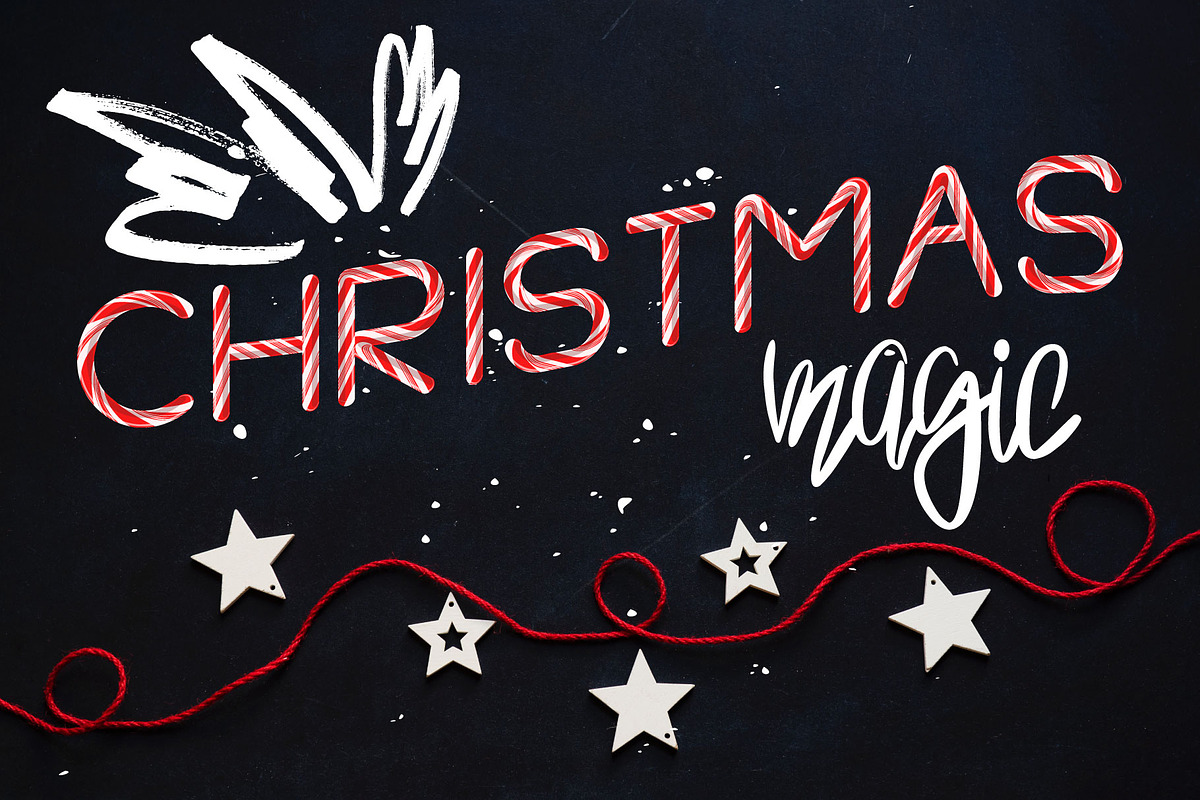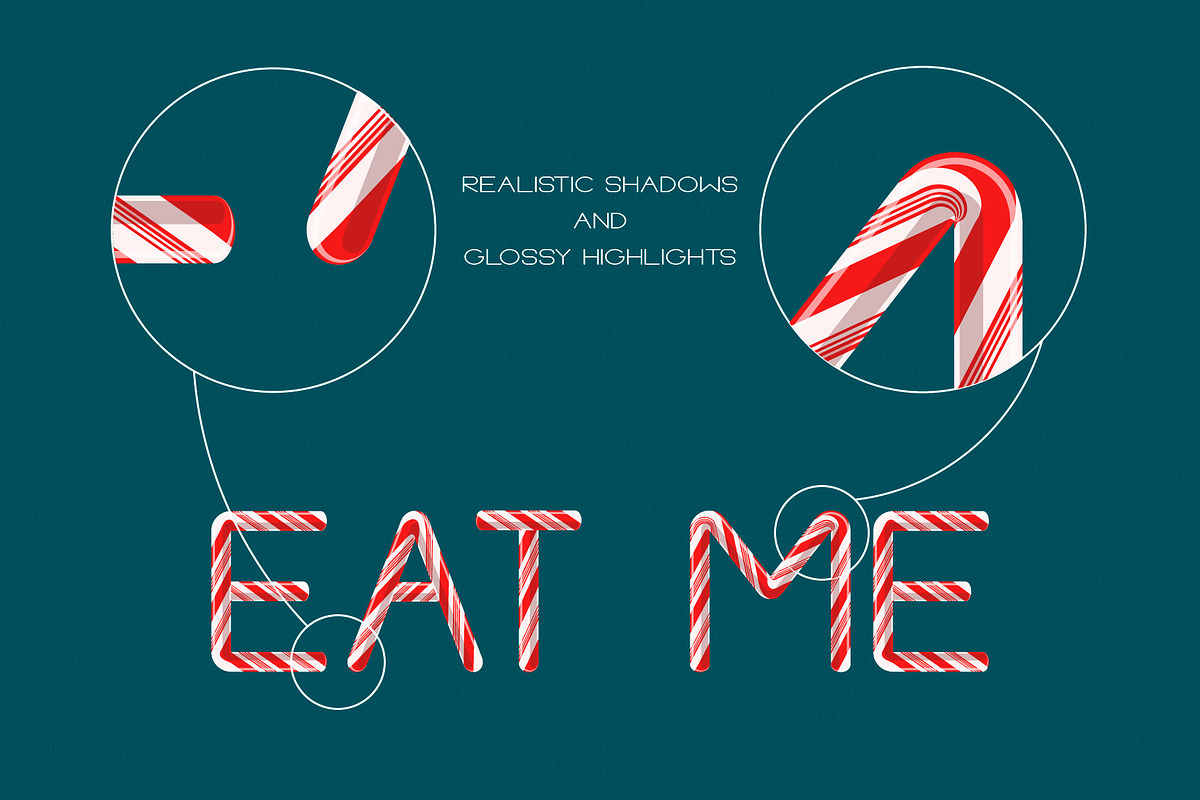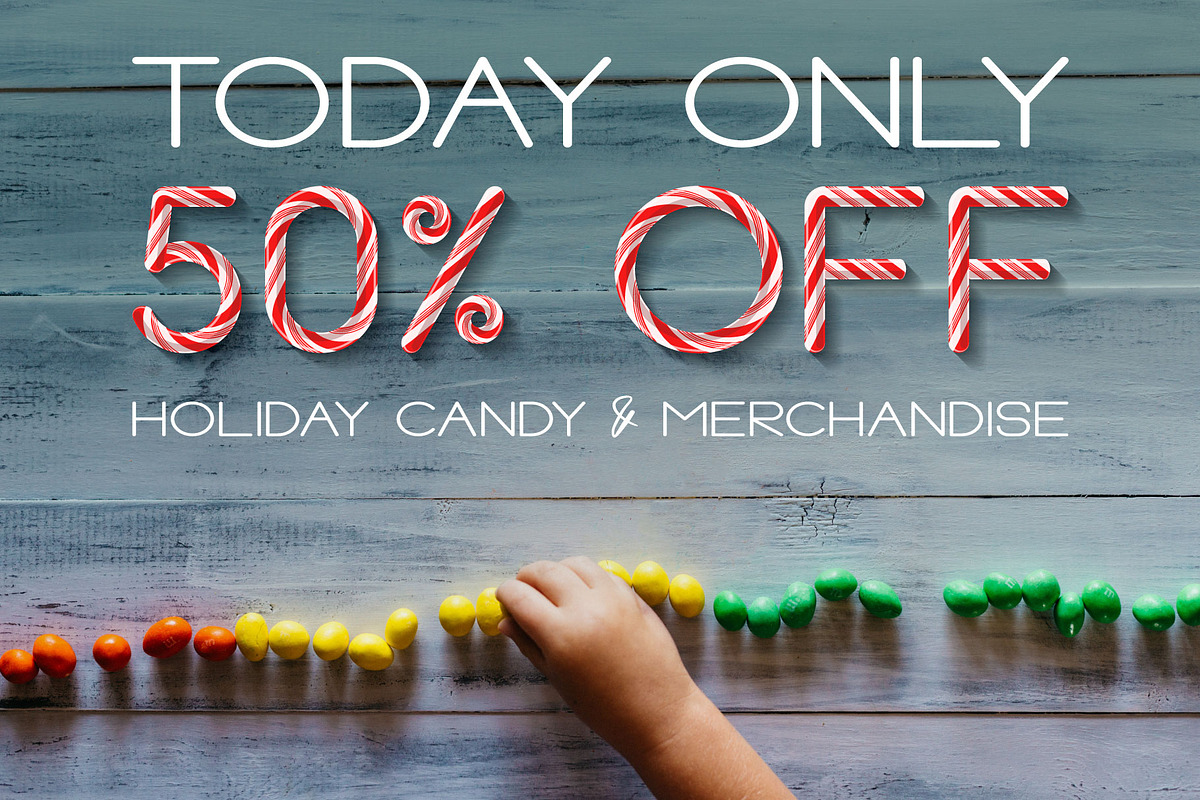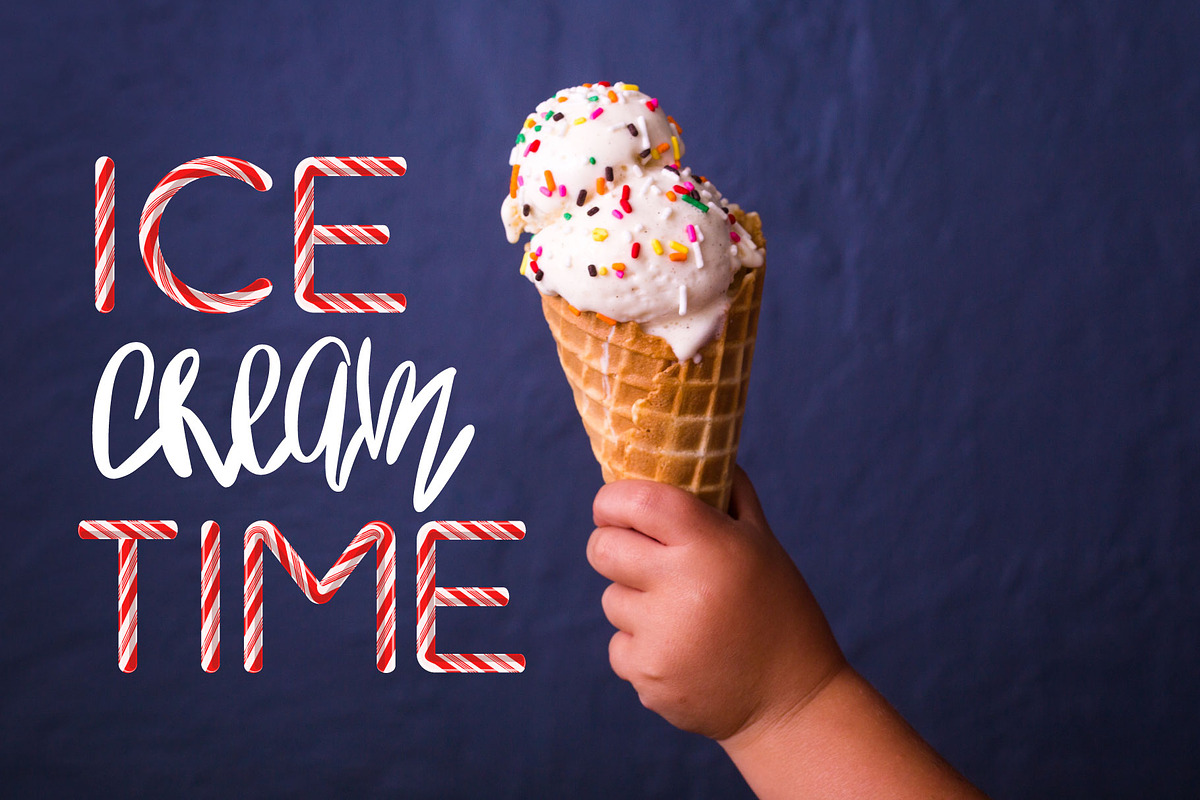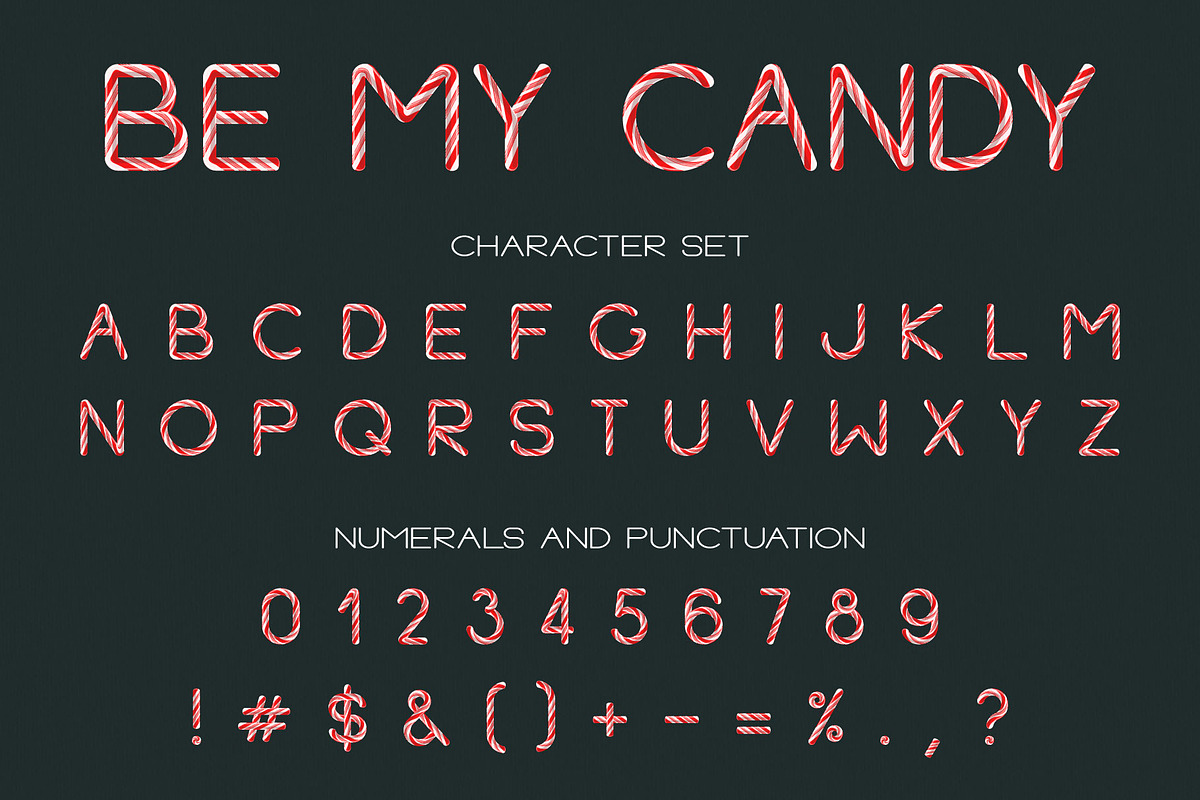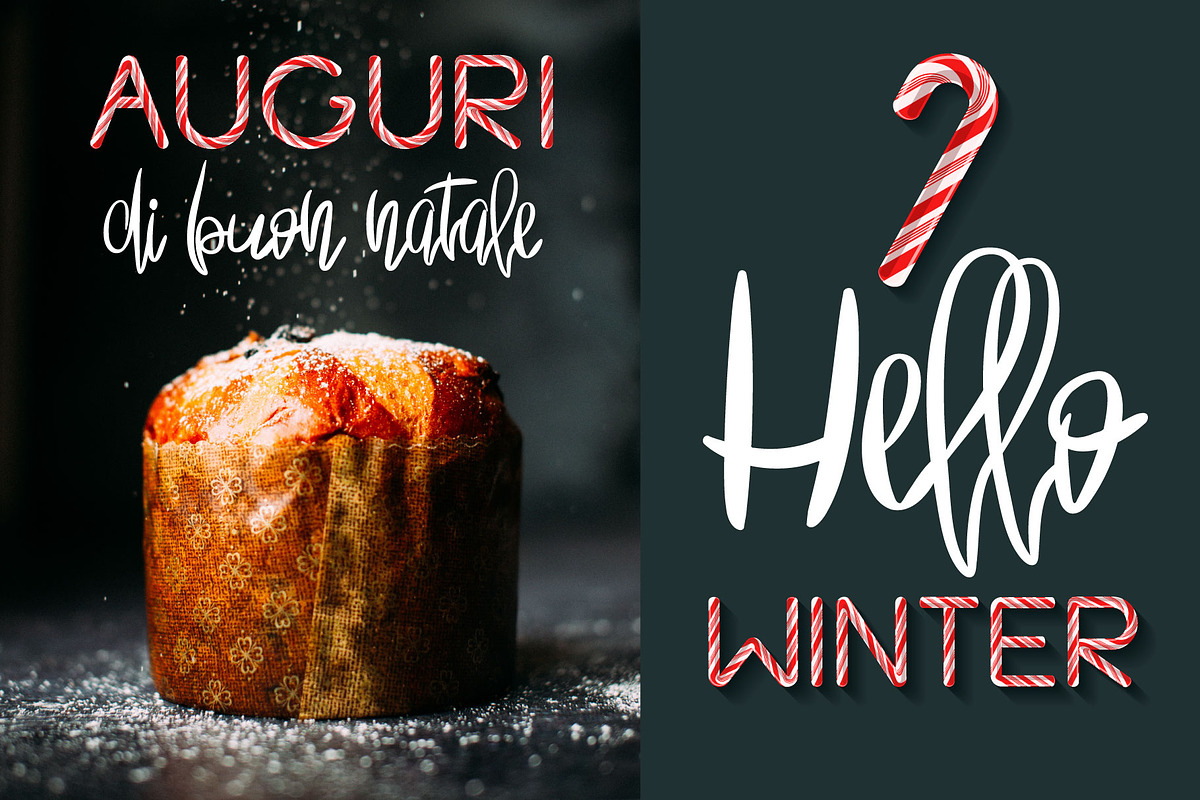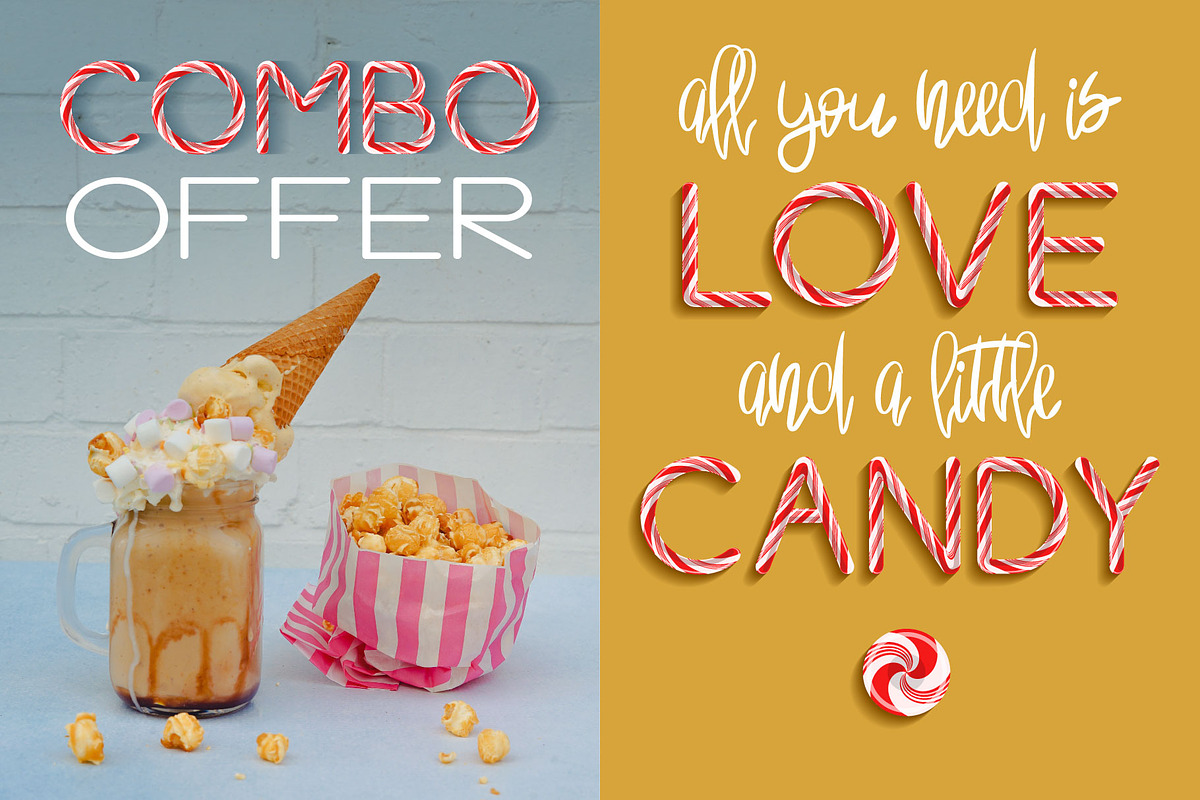
Be My Candy - OTF Color Font
Hello! Introducing Be My Candy - Color Font
It is OpenType SVG font that you can directly type as Candy Cane striped letters
Classic red and white twisted stripes. Each symbol has shadows and glossy highlights for realistic candy texture This font is Indispensable for Christmas design. But not only - it is versatile also for many other uses. So, have fun using it!
Try to combinate it with an elegant script or simple sans serif font for the best result. Second font used for screenshots - Palma Nana Font Duo
- Uppercase letters
- Punctuation